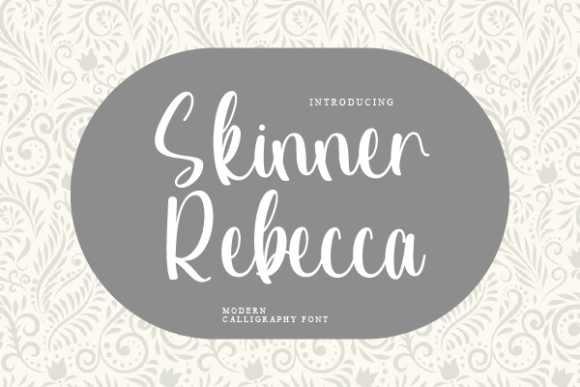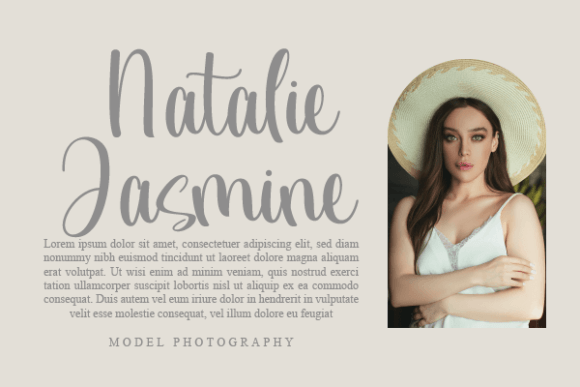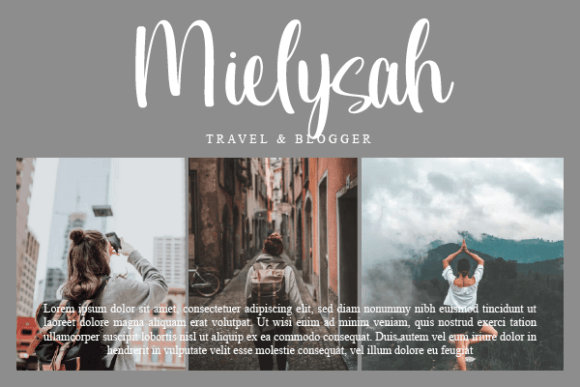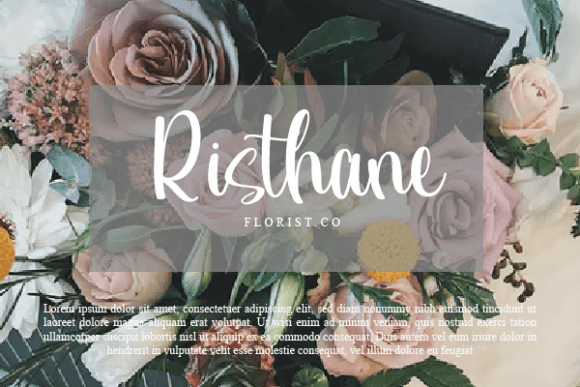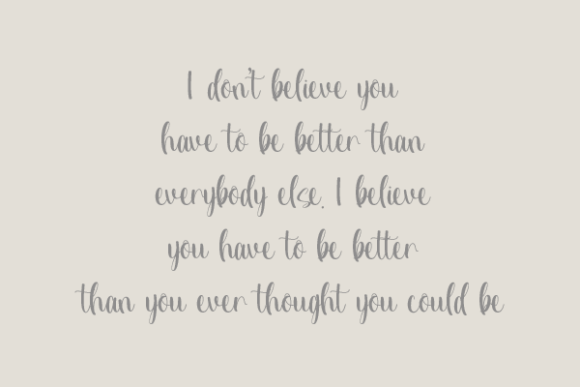
About Skinner Rebecca Font
Introducing the latest in artistic expression – Skinner Rebecca’s newest style letters. These letters are not just characters; they’re a symphony of design curated for perfection. Tailored for versatility, these letters are your ideal choice for a myriad of creative endeavors.
Imagine your space adorned with Skinner Rebecca’s letters, transforming it into a gallery of sophistication. These letters are more than mere symbols; they are an aesthetic statement, making them ideal for captivating wall displays that demand attention and evoke emotion.
For the most significant moments in life, Skinner Rebecca’s letters bring a touch of elegance to your wedding invitations. The carefully crafted curves and strokes of each letter add a personal and intimate feel, setting the tone for a celebration that is as unique as your love story.
In the realm of digital storytelling, these letters become the protagonists of your brand narrative. Whether it’s a social media post logo or an advertisement, Skinner Rebecca’s style injects personality into your visual identity. Your brand becomes more than a product; it becomes an experience, captivating your audience with the charm of handwritten aesthetics.
When it comes to product presentation, Skinner Rebecca’s letters are a game-changer. Picture your packaging adorned with these stylish characters, transforming your products into objets d’art. From labels that speak volumes to product designs that resonate with authenticity, this lettering style elevates your brand to new heights.
Photography, with its power to freeze moments in time, gains an extra layer of emotion with Skinner Rebecca’s letters. Whether as watermarks or integrated elements, these letters become subtle yet impactful contributors to your visual storytelling, leaving a lasting impression on your audience.
Invitations and stationery take on a new life with the handwritten taste of Skinner Rebecca’s letters. Each letter becomes a brushstroke in a personalized canvas, creating an intimate connection between sender and recipient. From the grand to the everyday, every project requiring a handwritten touch finds its muse in these letters.
In essence, Skinner Rebecca’s latest style letters are not just a typeface; they’re a design revolution. They are your companions in creativity, perfectly suited for wall displays, wedding invitations, social media branding, advertisements, product packaging, photography, watermarks, invitations, stationery, and every project that craves the distinctive allure of handwritten charm. Step into a world where letters aren’t just characters; they are the architects of unforgettable visual stories.